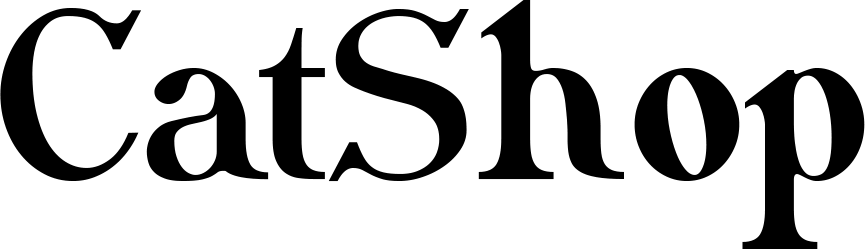
CatShop Font
The striking traits of this serif font, edgy, trim, and clean design make it appear attractive and also reliable in the eyes of readers. Increasing reliable and trustworthy awareness of your writing design is an exceptional chance that comes true with this CatShop font.
For those looking for a highly readable font with a unique professional design to promote many headlines, fashion, branding magazines, and posters, it can come along.